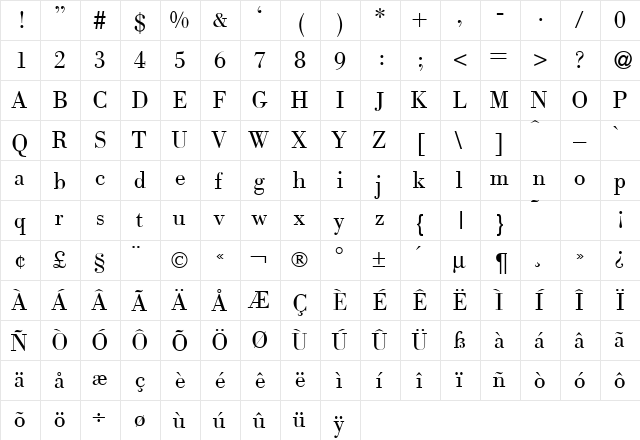
BodoLightDB Normal Font Preview
BodoLightDB Normal
BodoLightDB Normal Font Details
Design Context for BodoLightDB Typeface
BodoLightDB takes a measured approach to typography — its balanced proportions and neutral character make it a reliable workhorse for both digital and print work. The delicate stroke weight brings airiness and refinement to layouts.